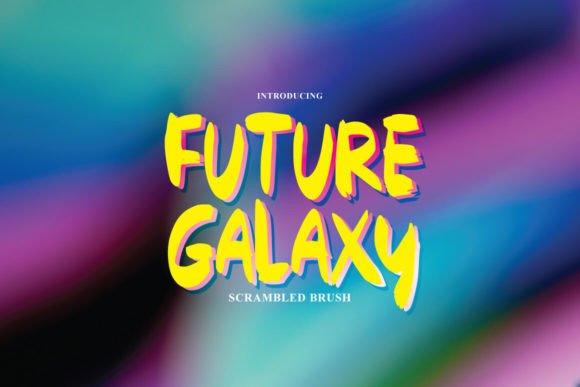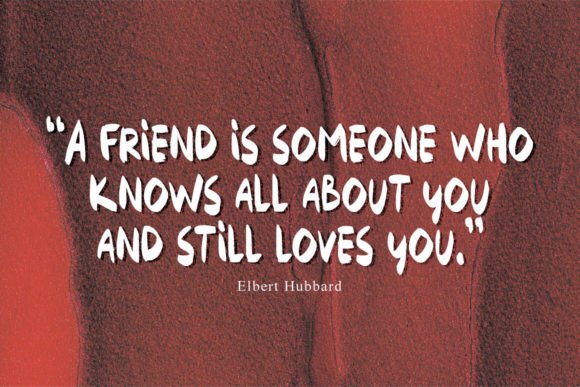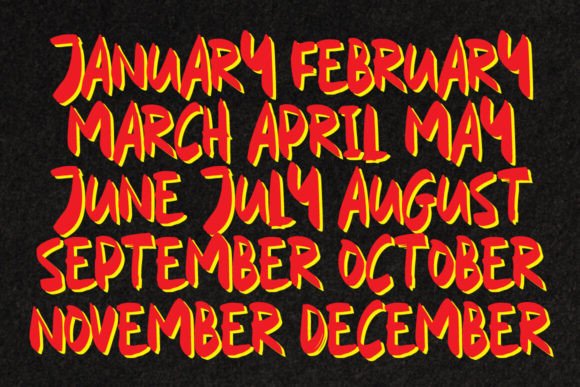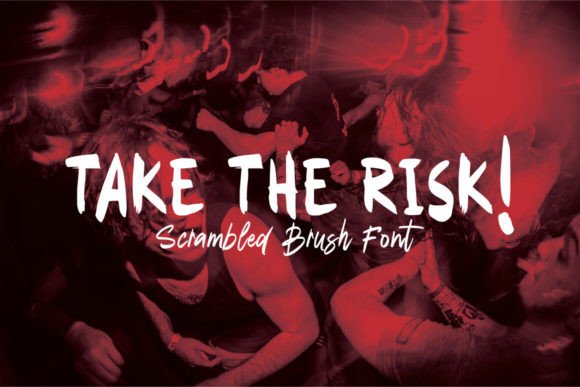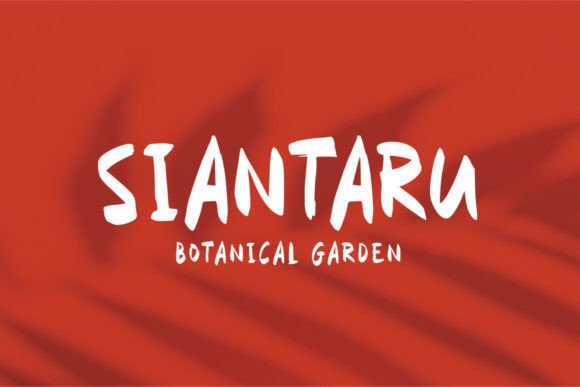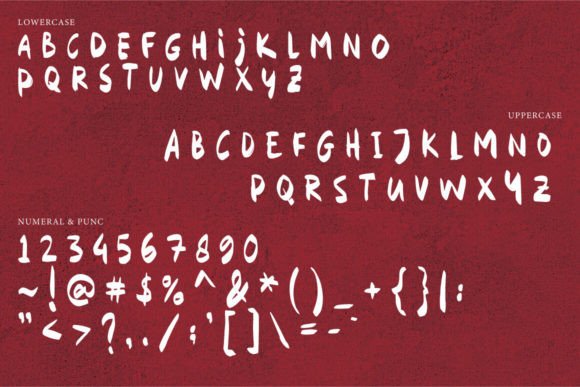
Introduction to Scrambled Brush Font
Do you remember the moment when you stumbled upon the perfect design resource? The one that sparked a creative fire within you, and you couldn’t wait to see the outcome? For many designers, that moment is what drives their passion and inspires their work. Today, we’re excited to share with you one such gem – the Scrambled Brush Font. This fun and quirky handwritten font is sure to add a unique touch to your creative projects, making them stand out in a crowd.
Whether you’re a seasoned designer or just starting out, the Scrambled Brush Font is a valuable addition to your design arsenal. With its free download option, you can easily incorporate it into your next project, experimenting with different combinations and styles. Plus, with a transparent background, you can ensure seamless integration with your design elements. As a high-quality resource, this font is perfect for designers seeking to elevate their work and leave a lasting impression.
Key Features of Scrambled Brush Font
- Unique, hand-drawn design suitable for creative projects and artistic endeavors
- Perfect for use in graphic design, illustrations, and digital art, adding a personal touch to creative projects
Honest Review: Scrambled Brush Font
As a designer, I’m always on the lookout for high-quality design resources that can elevate my creative projects. The Scrambled Brush Font is one such resource that caught my attention. In this review, I’ll share my honest thoughts on its strengths and weaknesses.
- ✨ Unique, hand-drawn style that adds a touch of personality to any design
- ✨ High quality and detailed strokes, perfect for creating visually appealing graphics
- ✨ Offers a transparent background option, making it easy to use in various design scenarios
- ⚠️ Limited character set, which may not be ideal for longer text-based designs
- ⚠️ Not suitable for small font sizes, as the strokes may become too thin and difficult to read
Overall, the Scrambled Brush Font is a great addition to any designer’s toolkit. While it has some limitations, its unique style and high-quality design make it a valuable resource for creative projects. I’d definitely recommend it for designers looking to add a touch of personality to their work.
Scrambled Brush Font
The Scrambled Brush Font is a unique design resource perfect for adding a creative touch to your next project. It’s available for free download and can be used in a variety of design applications.
To get the most out of the Scrambled Brush Font, try using it with a transparent background to add depth to your design. You can also experiment with different font sizes and colors to create a unique look.
The Scrambled Brush Font is perfect for creative projects such as:
- Invitations and event graphics
- Web graphics and social media posts
Alternatives to Scrambled Brush Font
Compared to Scrambled Brush Font, Hand-Drawn Script Font has a more delicate and elegant feel. While Scrambled Brush Font is ideal for bold and playful designs, Hand-Drawn Script Font is better suited for more refined and sophisticated projects.
Brush Script Pro Font
The Brush Script Pro Font is a premium design resource that offers a high level of customization. This font features a range of styles and variations, making it perfect for designers who want to add a touch of personality to their work. Use it when you need a font that is both elegant and sophisticated.